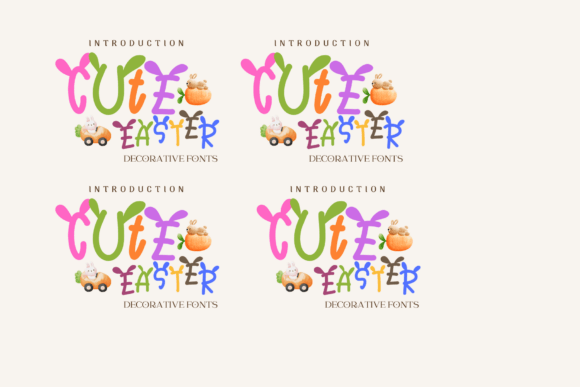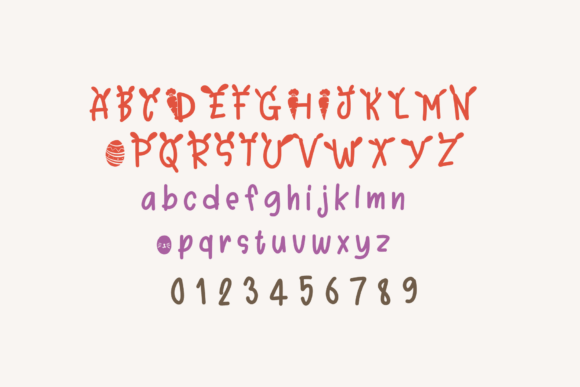
Spring into Creativity with the Cute Easter Font
There’s something special about sitting down with a cup of coffee, a blank notebook, and a dash of creativity on a sunny morning. The world feels full of possibilities, and your imagination runs wild. You start brainstorming ideas for a new project, and before you know it, you’re doodling Easter eggs, bunnies, and spring flowers. This is the perfect moment to introduce a font that captures the essence of this joyful season – the Cute Easter Font.
This adorable Decorative font is not just for Easter-themed designs. It’s perfect for adding a touch of whimsy to your everyday creations, from notes and diaries to greeting cards and social media posts. As a designer, you know the value of having a versatile font that can elevate your designs and make them stand out. The Cute Easter Font is a valuable addition to your toolkit, offering endless possibilities for creative expression.
Cute Easter Font Key Features
- Unique Characteristics: Includes Easter-themed characters and symbols, such as eggs, bunnies, and flowers
- Font Style: Includes bold, italic, and regular font styles for added versatility
Cute Easter Font Review
I recently had the chance to work with the Cute Easter Font, and I must say, it’s a delightfully cheerful addition to any design project. ✨ The font’s playful and whimsical feel makes it perfect for Easter-themed designs, but it also works well for other spring-inspired projects.
- Colorful and whimsical feel**: The font’s design is full of Easter eggs (pun intended!), with cute little characters and flourishes that add a touch of magic to any design.
- Great for title and headline use**: The font’s larger sizes look fantastic on screen, making it perfect for use as a title or headline.
- Compatible with various design styles**: The font’s versatility allows it to work well with a range of design styles, from modern to traditional.
However, I do have a few limitations to note. ⚠️ While the font is generally easy to use, I found the character set to be a bit limited, which may be a concern for designers who need to use the font for longer blocks of text.
Overall, I think the Cute Easter Font is a great addition to any designer’s toolkit. It’s a fun and creative font that’s perfect for Easter-themed designs, but also works well for other spring-inspired projects. Just be aware of the limitations, and use it wisely.
Getting the Most Out of Cute Easter Font
Here are some tips for getting the most out of Cute Easter Font:
- Use it to create playful and whimsical designs
- Pair it with bright and pastel colors to create a festive atmosphere
- Experiment with different font sizes and styles to add visual interest
Cute Easter Font is commonly used for:
- Easter-themed designs (e.g. cards, banners, etc.)
- Spring-themed designs (e.g. garden, flowers, etc.)